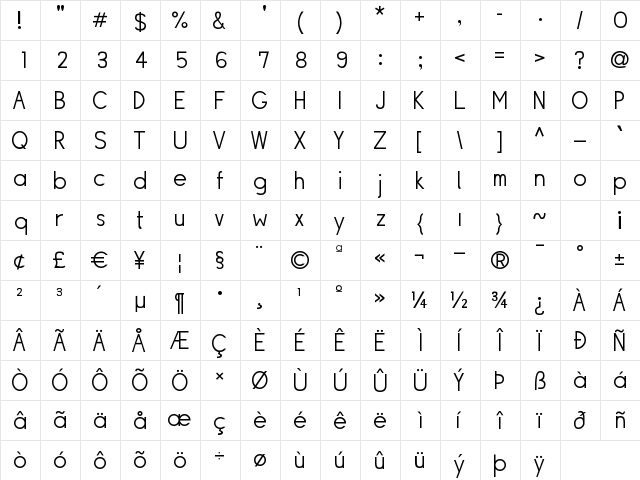
Siple Light
Design Context for Siple Typeface
Siple is a composed and adaptable typeface that performs quietly and consistently across a wide range of design contexts. The delicate stroke weight brings airiness and refinement to layouts.